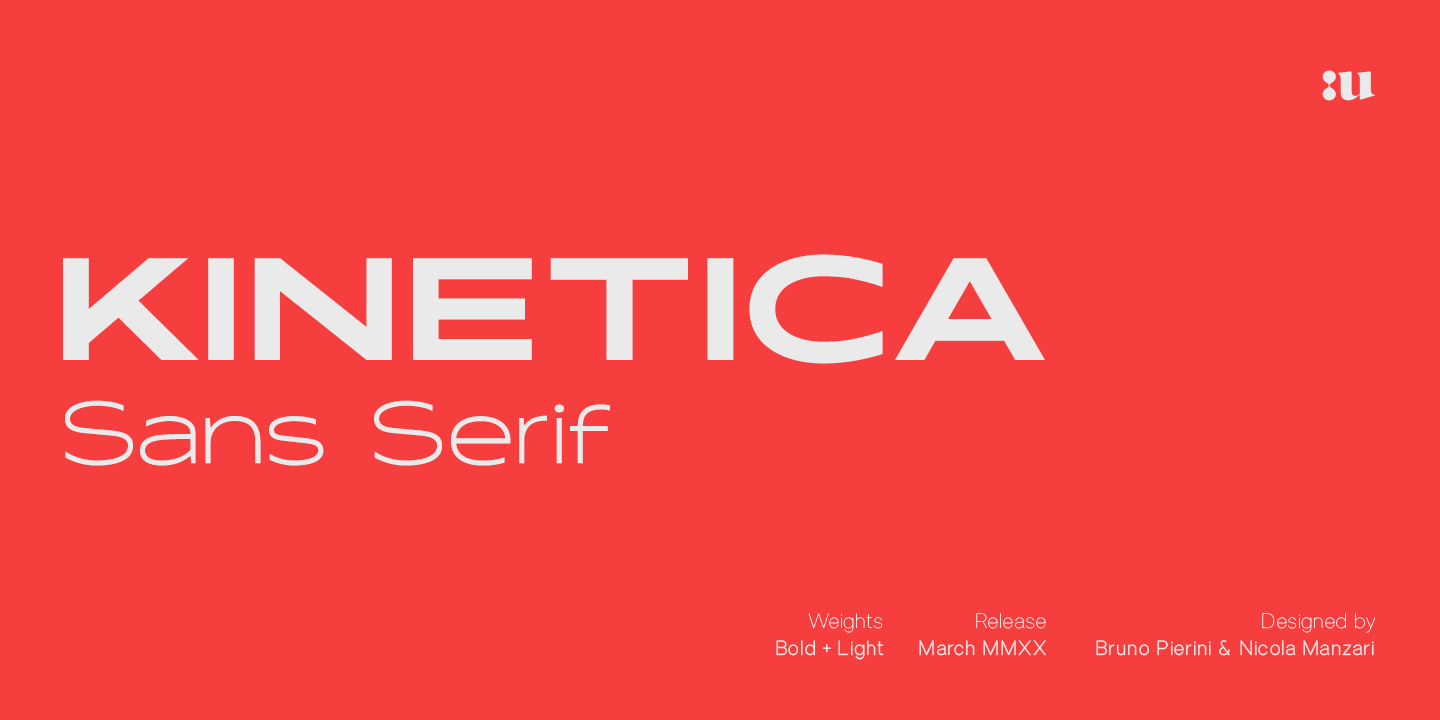
Kinetica Font is perfect for motion graphics studios, kinetic energy company branding, dynamic sports equipment packaging, fitness technology interfaces, movement-based app designs, athletic performance analytics, physical therapy clinic materials, dance studio communications, biomechanics research presentations, and innovative exercise equipment marketing.
What makes Kinetica Font so exciting is its extraordinary ability to capture the pure essence of movement and kinetic energy through dynamically engineered letterforms that seem to pulse with the rhythmic force of human motion and the fluid mechanics of bodies in perfect athletic performance. This font embodies the science of movement and the art of physical excellence, featuring flowing characters that appear designed to visualize the elegant mathematics of motion and the precise biomechanics that govern every stride, jump, and graceful gesture. The kinetic letter shapes create an atmosphere of dynamic energy and scientific precision, making every word feel charged with the power of movement and the excitement of athletic achievement at its highest level.
The Kinetica Font family includes Ultra Light, Light, Regular, Medium, Bold, and Black weights, along with italic and motion-blur variations for dynamic effects. Each style maintains the font's distinctive kinetic character while offering versatility for different movement applications, from subtle performance data to bold headlines that celebrate the incredible capabilities of the human body in motion.
This revolutionary typeface brings authentic movement science aesthetics to contemporary design projects. The Kinetica Font Free Download provides designers with an exceptional tool to create memorable brand identities that communicate innovation, performance, and the cutting-edge science of human kinetics. Whether you're developing sports technology branding, designing fitness equipment interfaces, or creating movement analysis communications, this font delivers unmatched dynamism and scientific credibility.
The precisely engineered letterforms in Kinetica Font feature flowing curves and angular elements that mirror the natural trajectories of athletic movement and the sophisticated measurement systems used to analyze peak human performance. Each character has been designed to maintain perfect readability while expressing the fluid dynamics and precise timing that separate elite athletes from recreational performers. The font's movement-oriented appearance makes it ideal for applications requiring genuine athletic authority and biomechanics expertise.
Sports science professionals appreciate how Kinetica Font effortlessly communicates innovation, performance optimization, and cutting-edge research capabilities while appealing to athletes and fitness enthusiasts seeking advanced training methods and scientific approaches to human movement enhancement. The comprehensive glyph set includes kinetic symbols, motion indicators, performance metrics, and extensive international language support, ensuring global compatibility while maintaining its distinctive movement-based identity. This makes it an invaluable resource for sports technology companies, fitness equipment manufacturers, biomechanics laboratories, and any organization seeking typography that embodies the fascinating intersection of human movement, scientific analysis, and the relentless pursuit of athletic excellence that drives researchers and athletes to unlock the extraordinary potential hidden within every human body's capacity for beautiful, powerful, and precisely controlled motion.